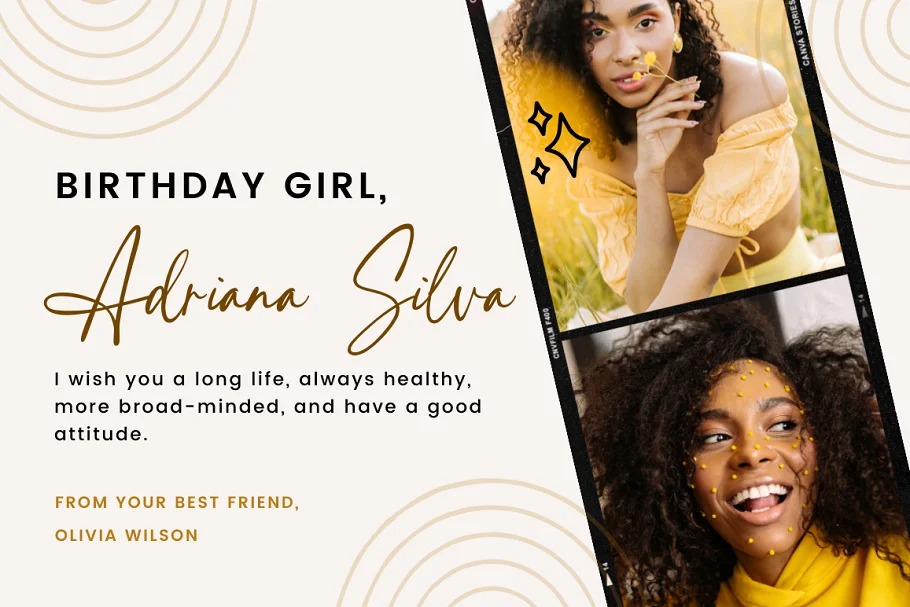
Priestacy Handwritten Font
This is a new script typeface based on authentic hand writing with natural signature style. This font is perfect for branding, invitation, stationery, wedding designs, social media posts, advertisements, product packaging, product designs, label, photography, watermark, special events, and more.